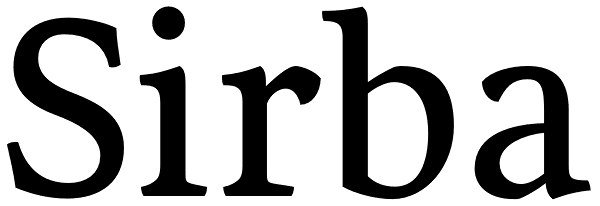
Sirba
Sirba, a serif typeface family with a friendly personality, was conceived especially for the demands in complex text environments like dictionaries, academic texts, annual reports, novels and magazines. It has many design features that were...